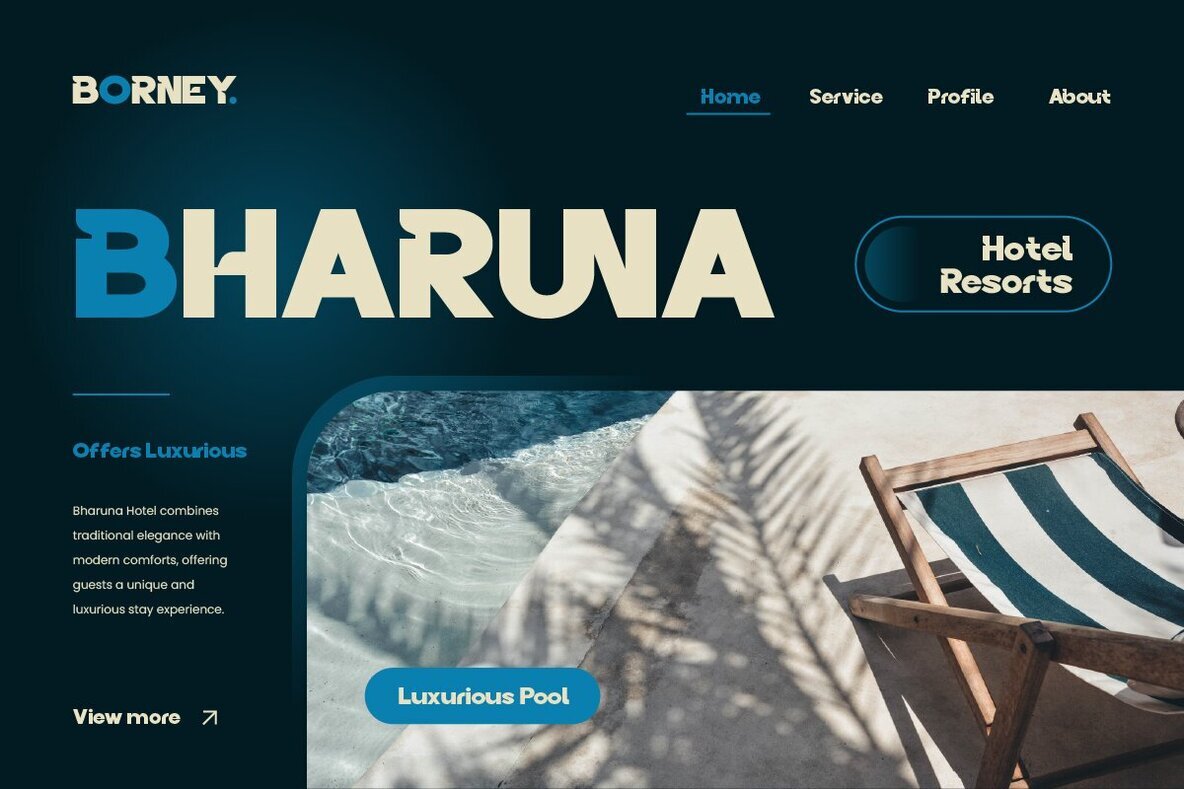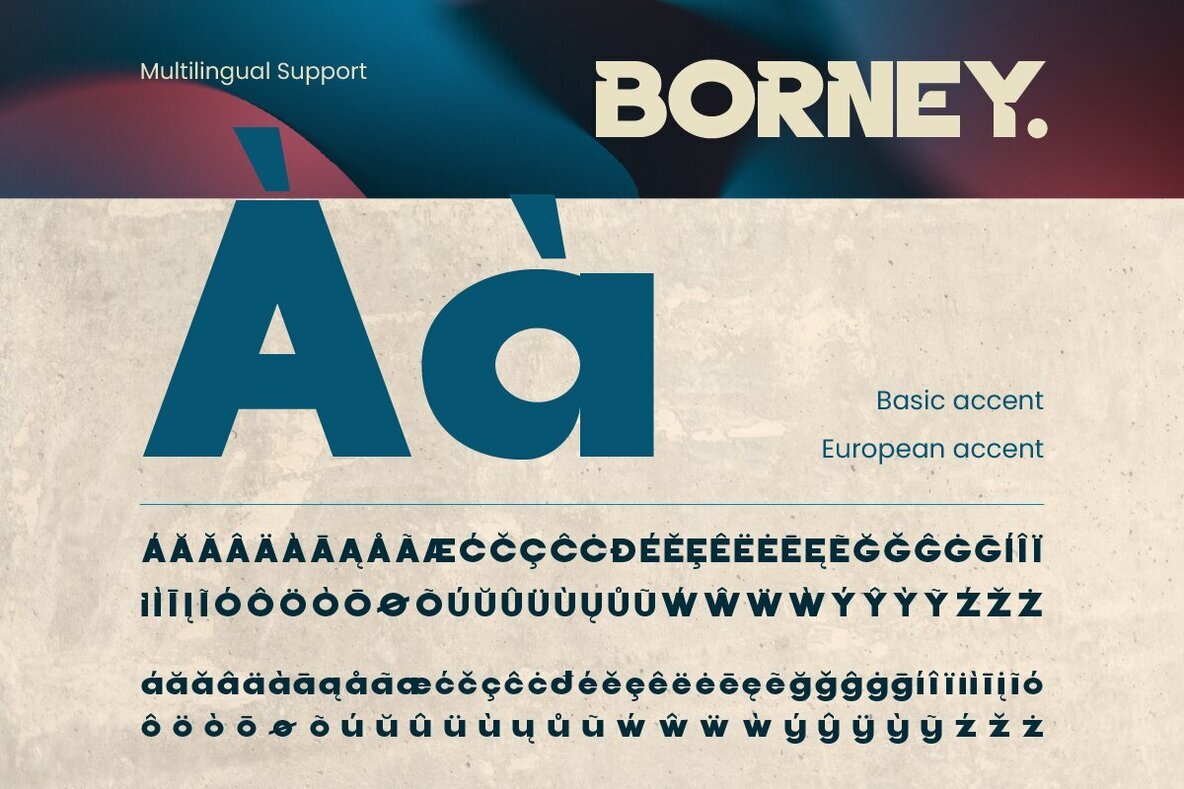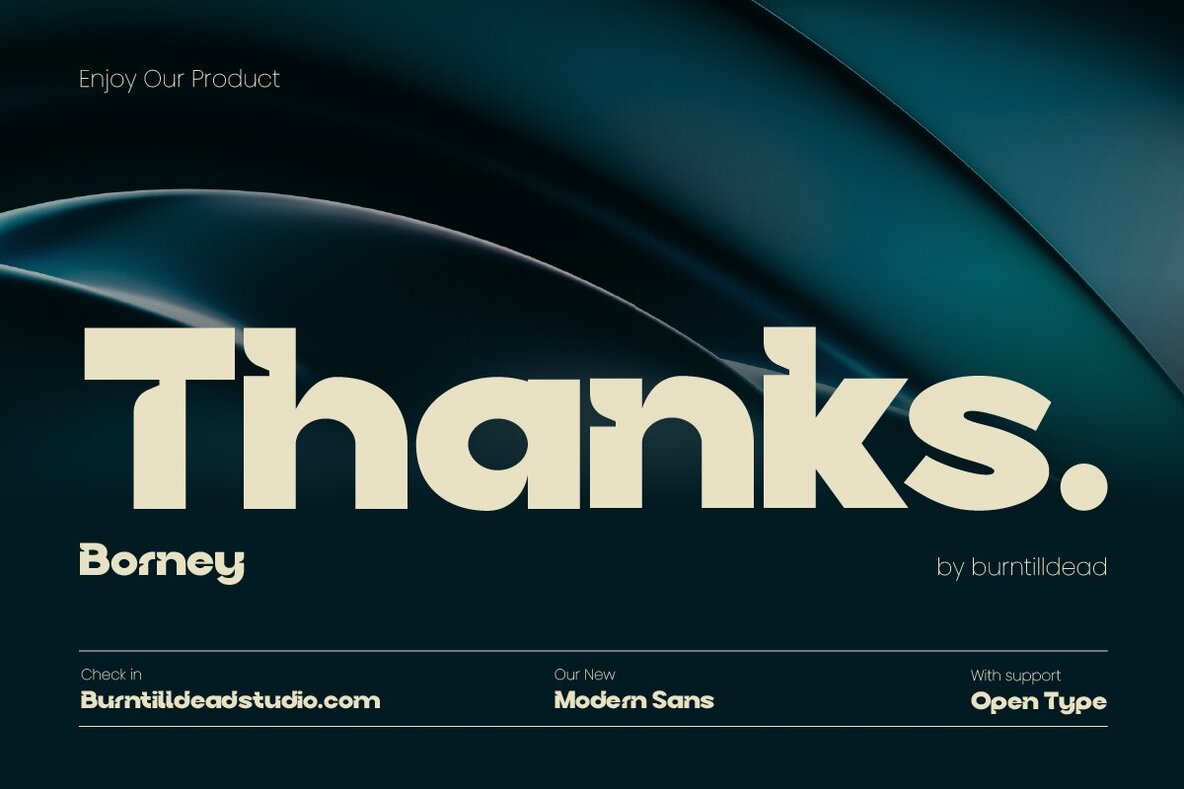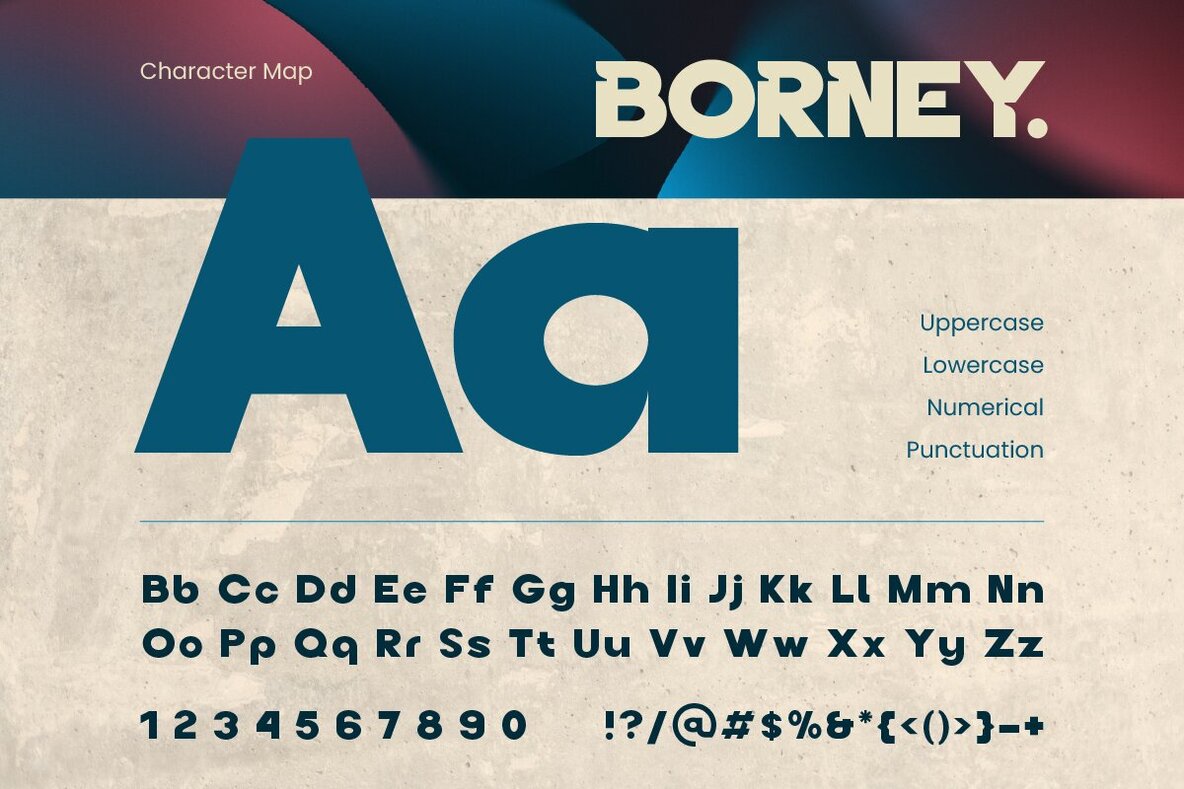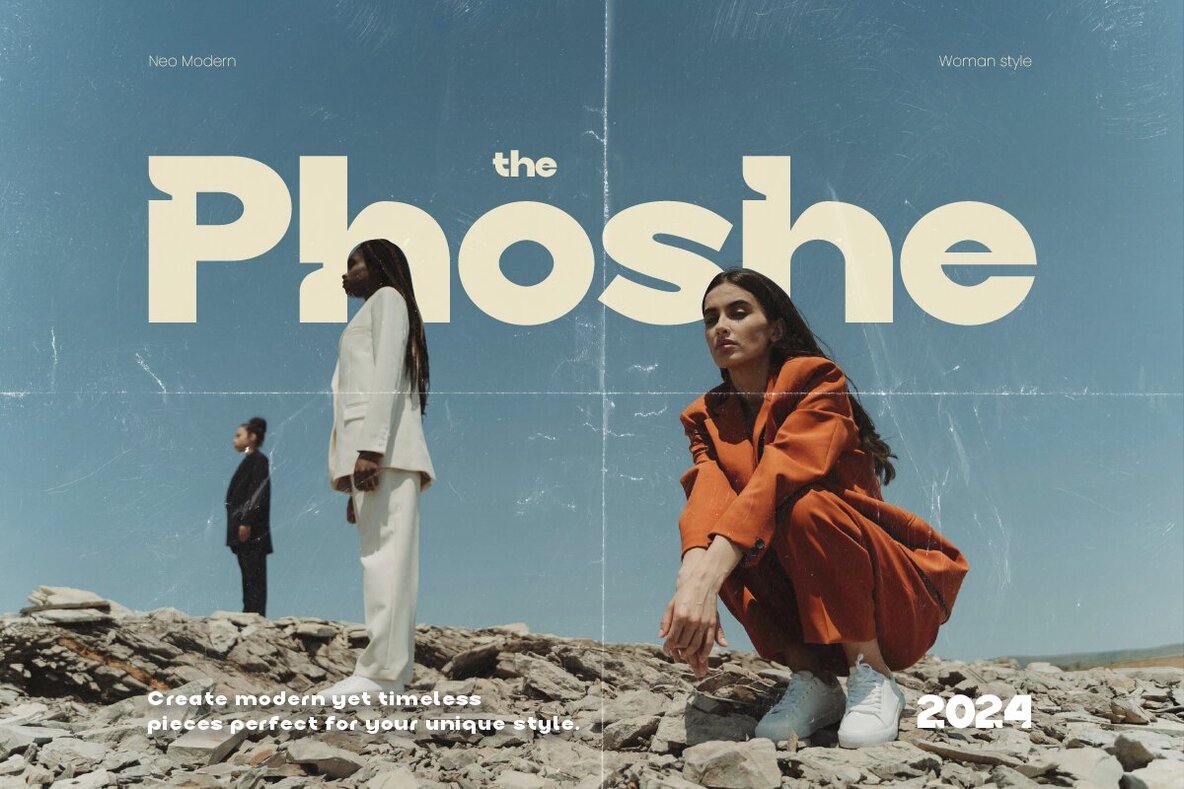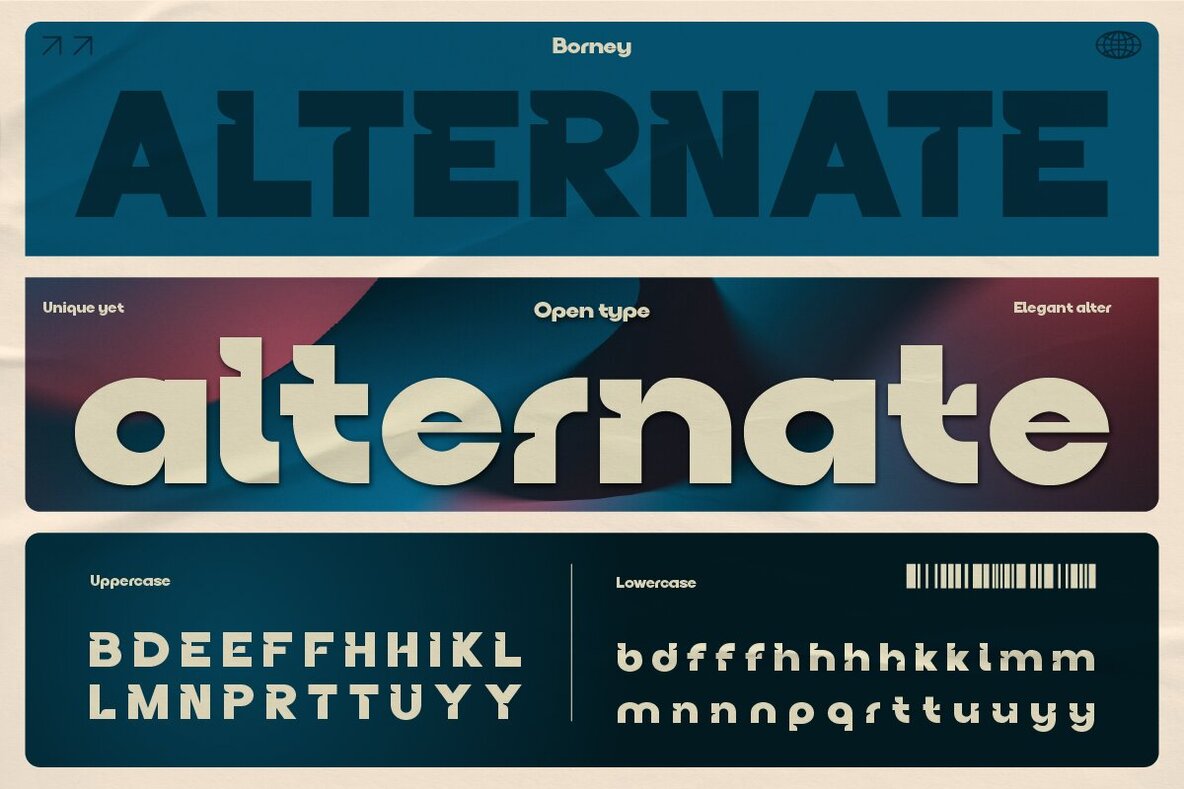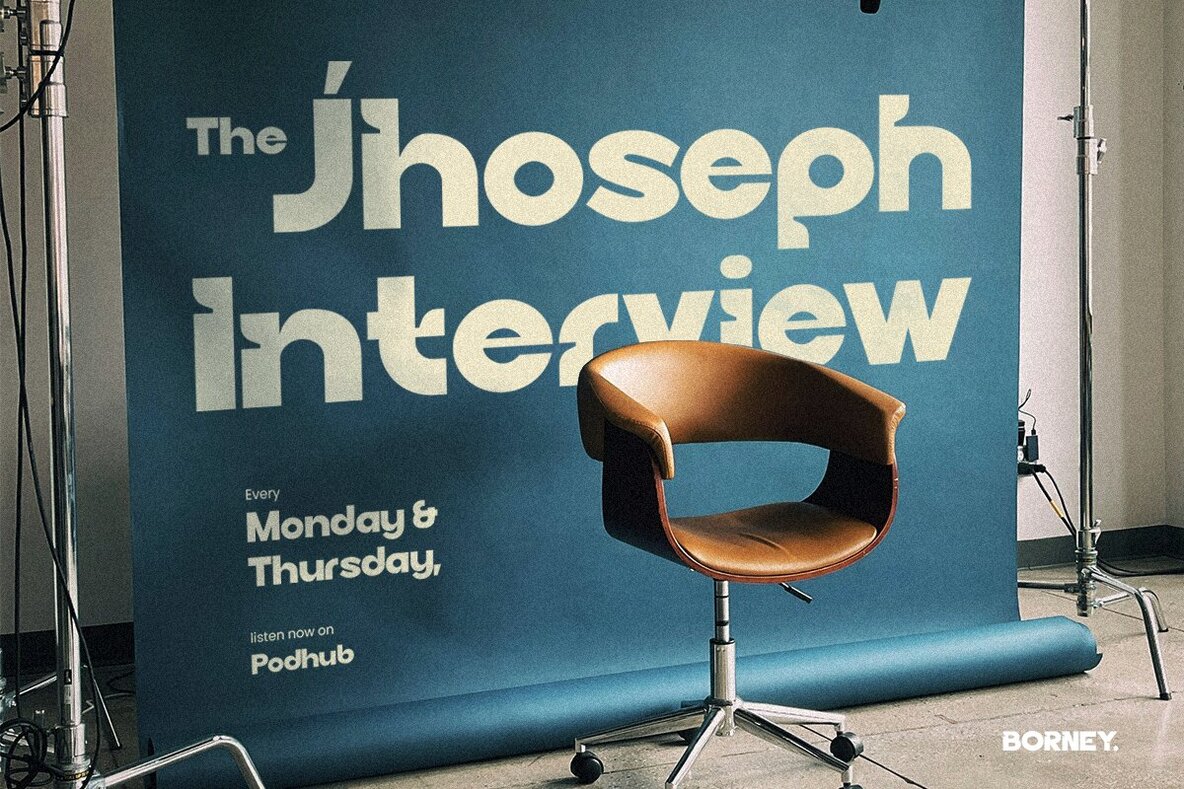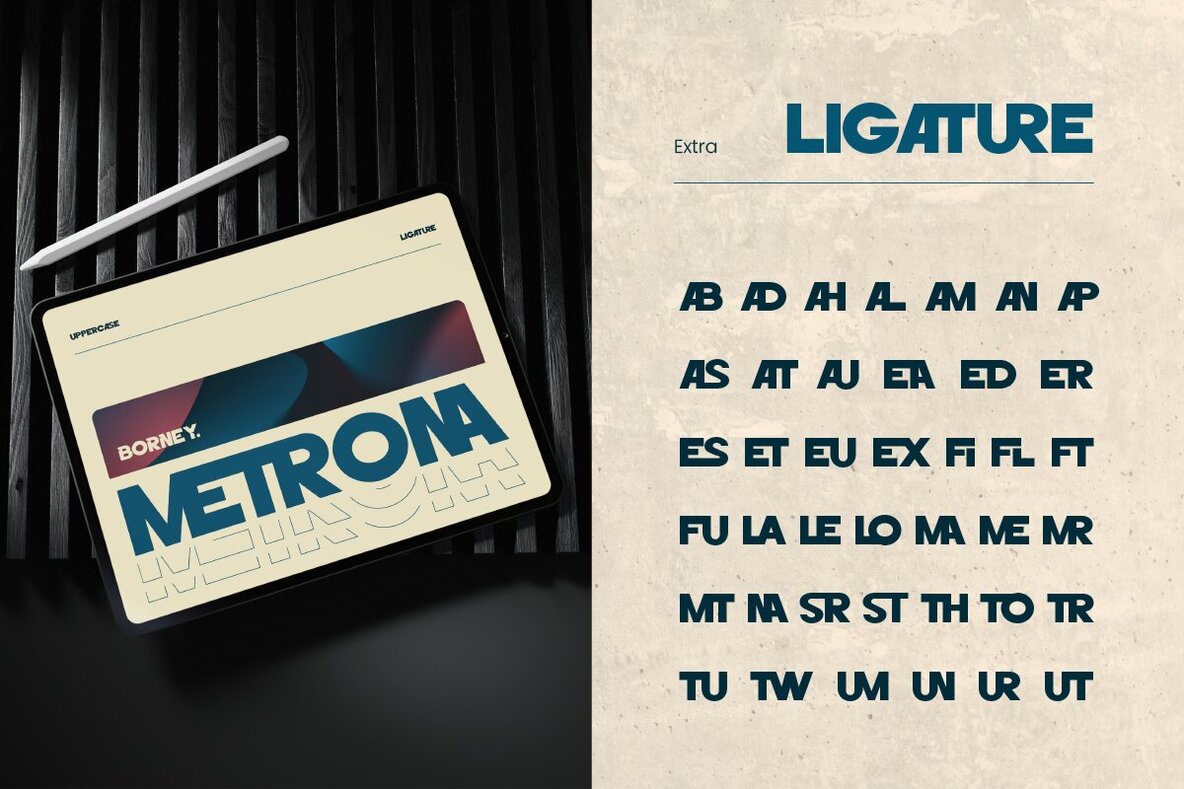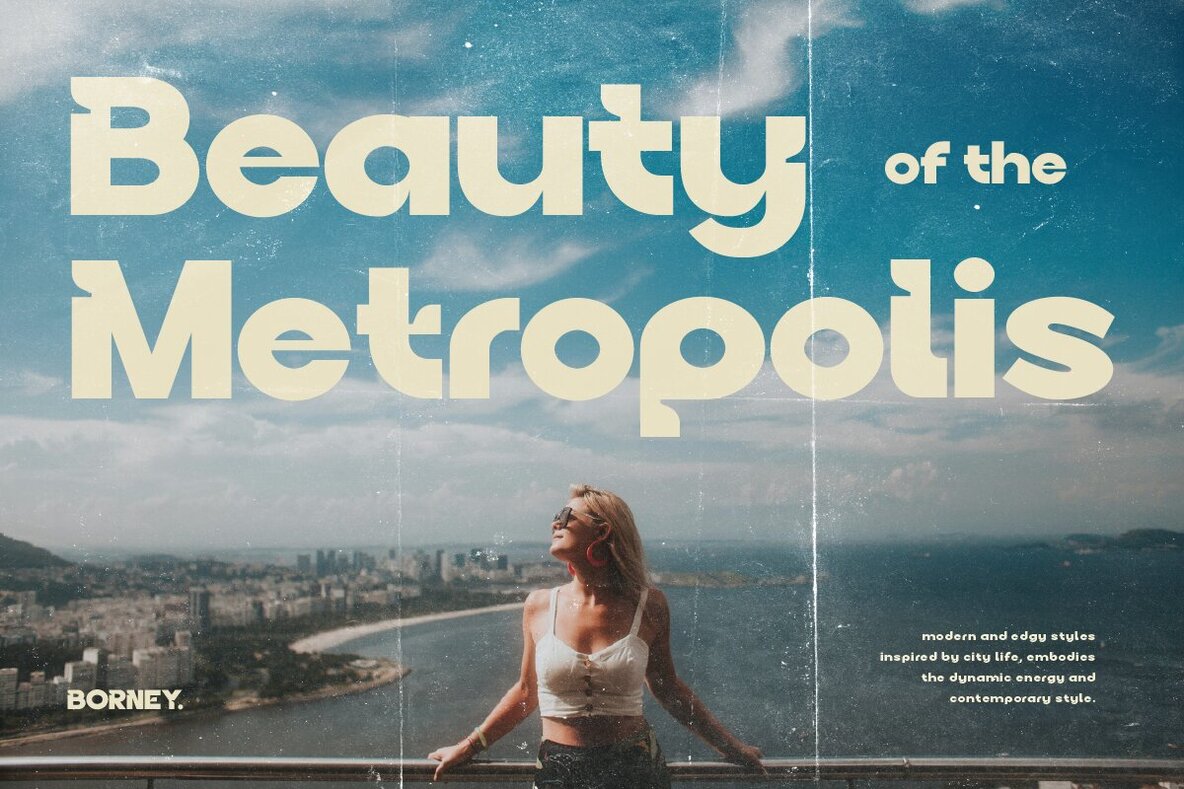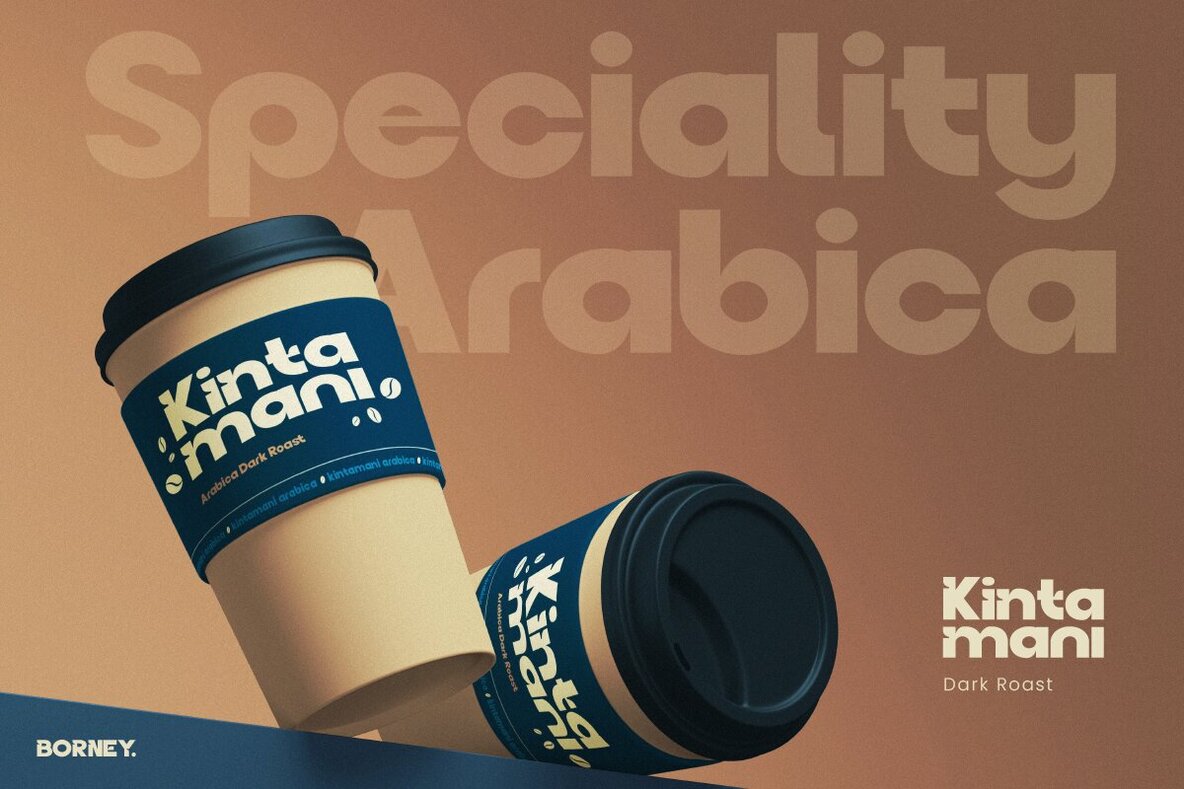
Borney Font
Borney Regular
Experience modern minimalism with Borney, a sans serif font that epitomizes bold, clean lines and simplicity. This contemporary typeface is perfect for creating a professional and forward-thinking style across various design projects. Whether you are working on corporate branding, editorial layouts, web interfaces, signage, or product labels, Borney provides a versatile and sophisticated look that enhances your design's visual appeal.
Borney offers a comprehensive set of features, including a full A-Z alphabet, numbers, punctuation, ligatures, alternates, and multilingual support. Its minimalist design allows for clear readability and adaptability, making it a valuable addition to any designer's toolkit. Incorporate Borney into your next project to achieve a sleek and modern aesthetic that stands out.